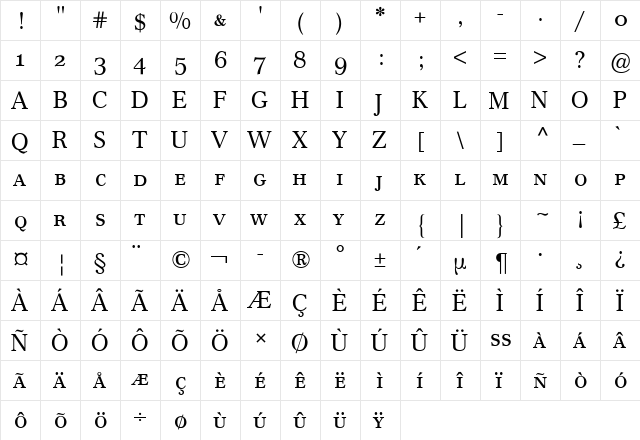
Cremona Expert BQ Regular
Design Context for Cremona Expert BQ Typeface
Cremona Expert BQ is a composed and adaptable typeface that performs quietly and consistently across a wide range of design contexts.
Pro Tip: Use Cremona Expert BQ in both headline and body roles to test its range before committing to a single application.